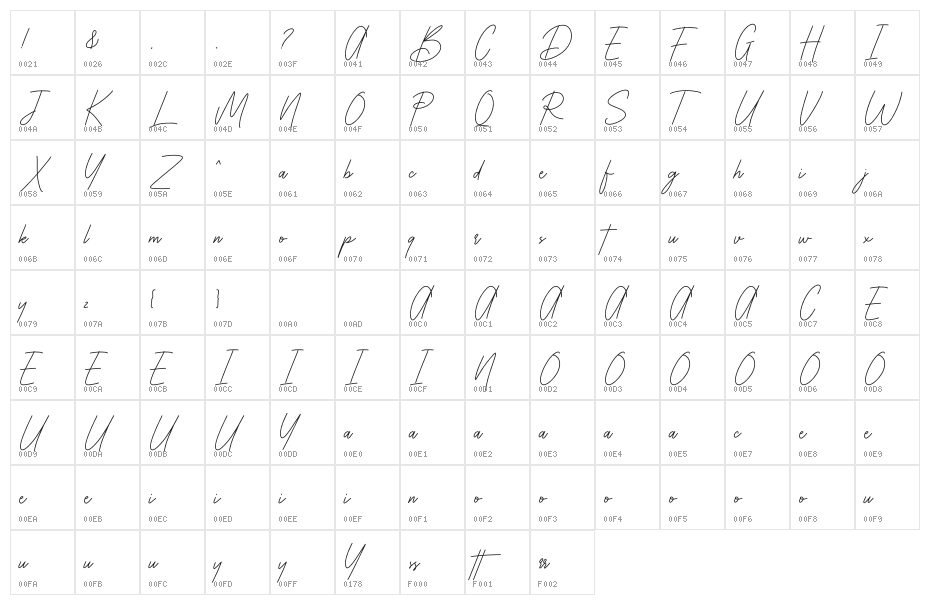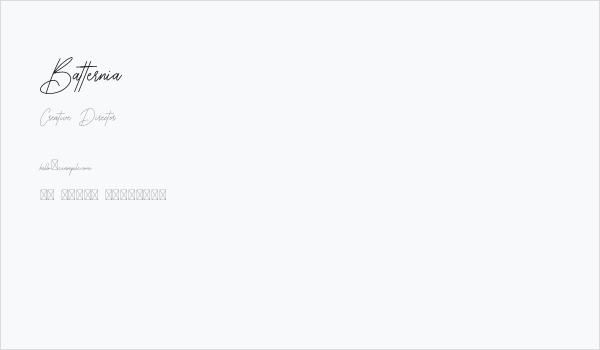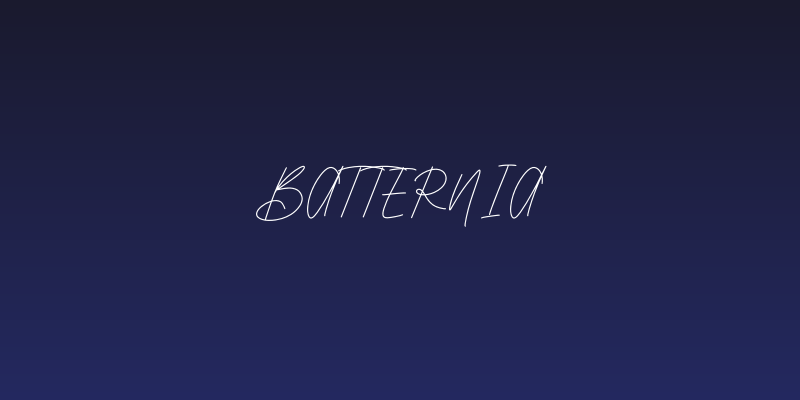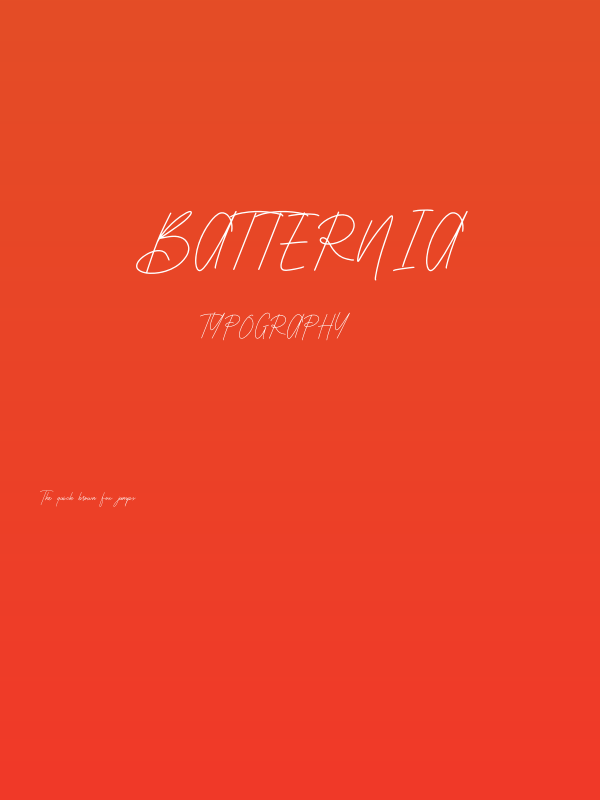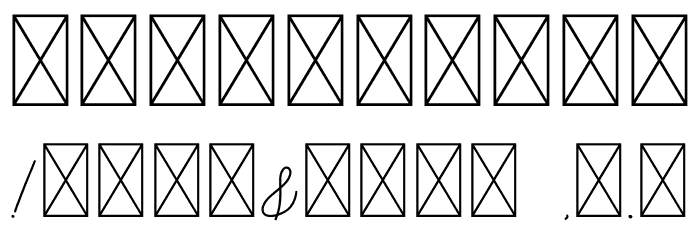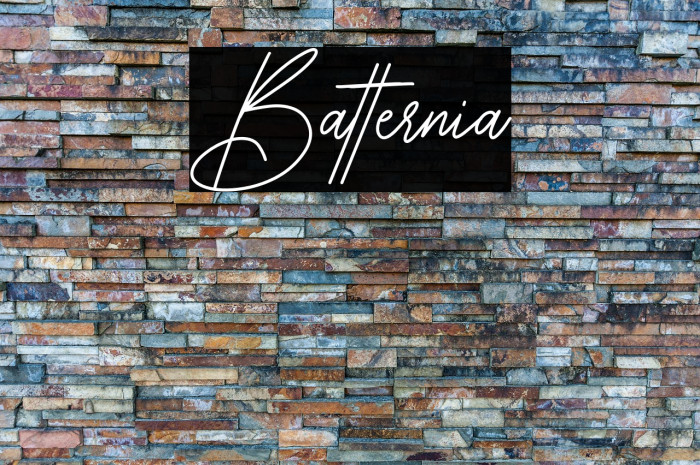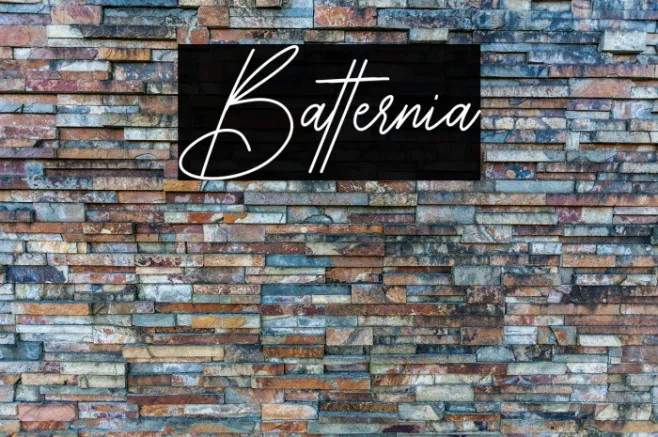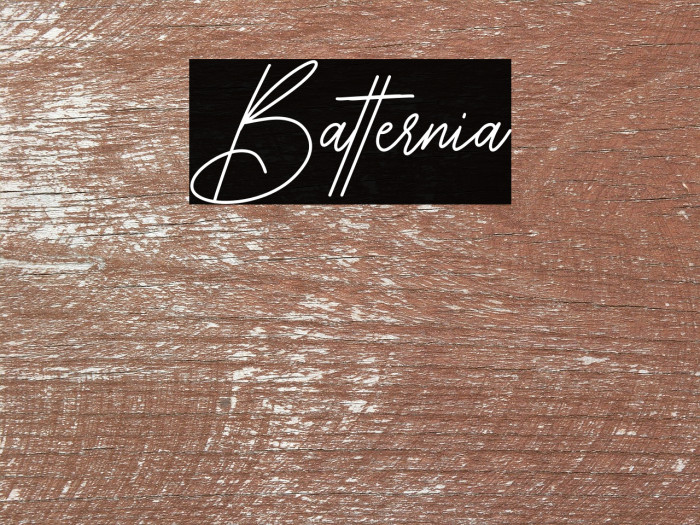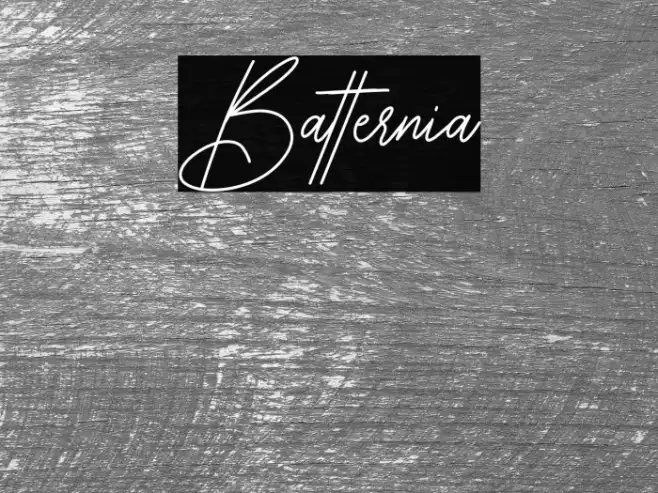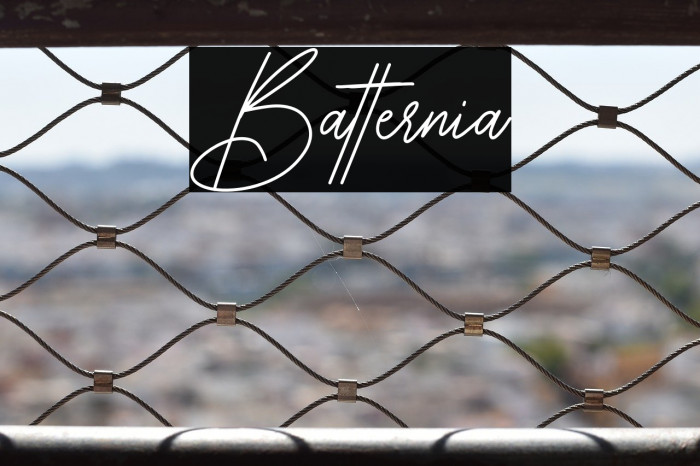
Batternia Font
Batternia Description
This font exudes a modern and elegant handwritten style, characterized by its fluid and graceful strokes. The uppercase letters are tall and slender, with a slight slant that adds a dynamic feel. The lowercase letters maintain a consistent flow, enhancing readability while preserving the script's artistic flair. The numerals are clear and well-proportioned, matching the overall aesthetic. Special characters are seamlessly integrated, maintaining the font's cohesive appearance. This font's delicate lines and sophisticated design make it suitable for a variety of creative applications.
| Proposed Projects | Ideal for wedding invitations, personal branding, elegant logos, and artistic projects. |